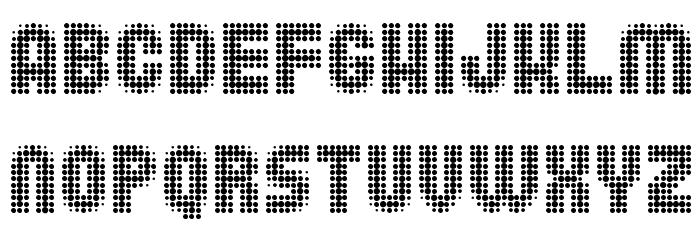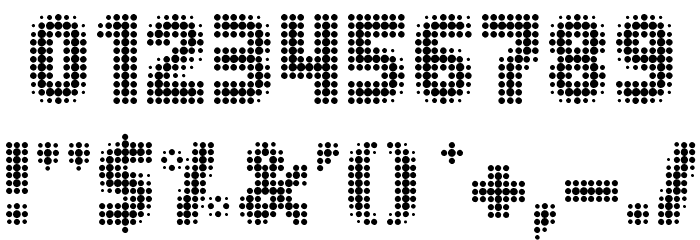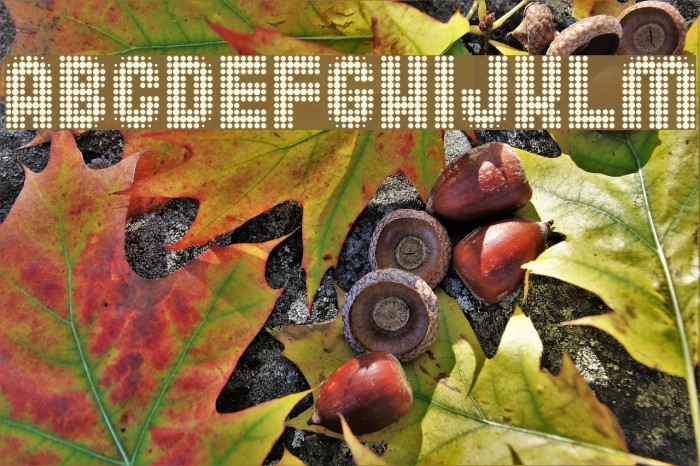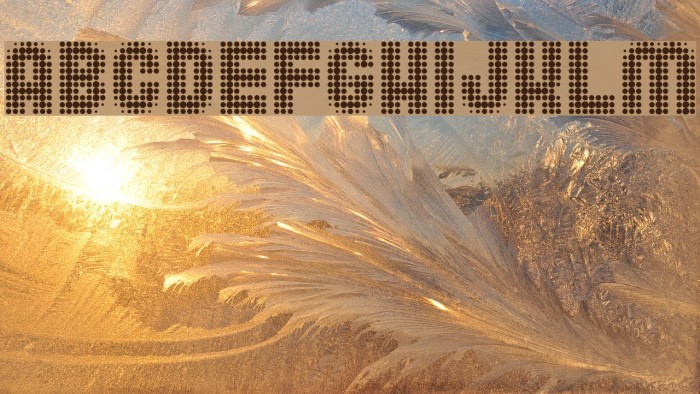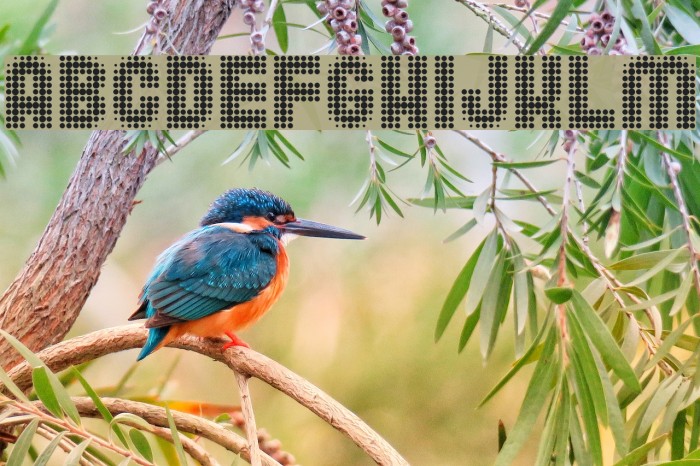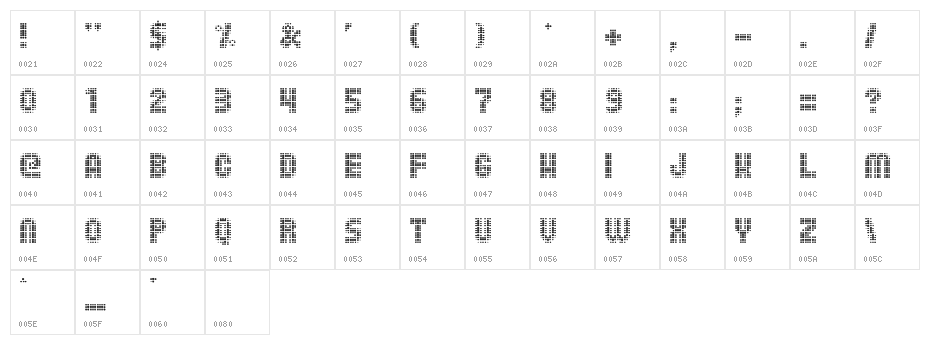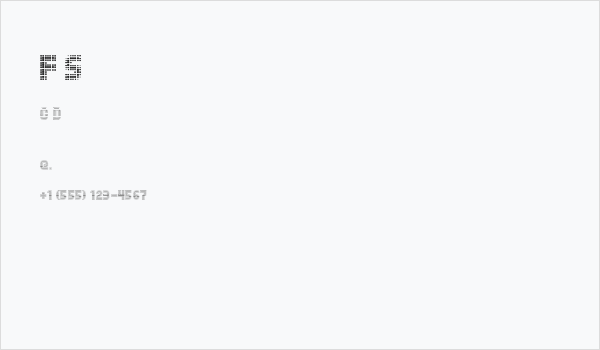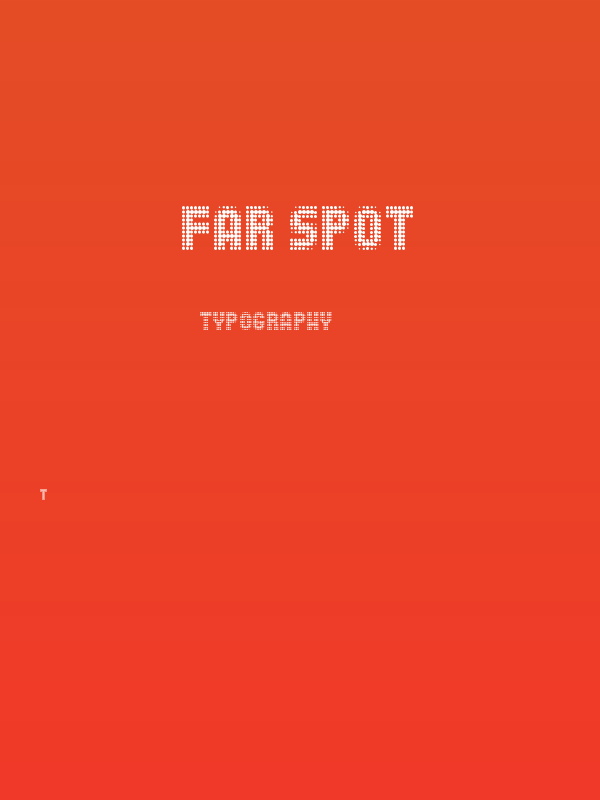
Far Spot Font
This font features a unique design composed entirely of small dots arranged to form each character. The dotted pattern gives it a digital, pixelated appearance reminiscent of LED displays or retro video game graphics. Each letter and number is clearly defined, with consistent spacing between the dots, creating a uniform and cohesive look. The font maintains a geometric structure, with straight lines and sharp angles, enhancing its modern and technological feel. The special characters are also crafted with the same dotted style, ensuring a seamless integration with the rest of the character set.
A modern, dotted font with a digital, pixelated appearance.
- Proposed Projects: Ideal for digital displays, retro-themed designs, tech branding, and creative posters.